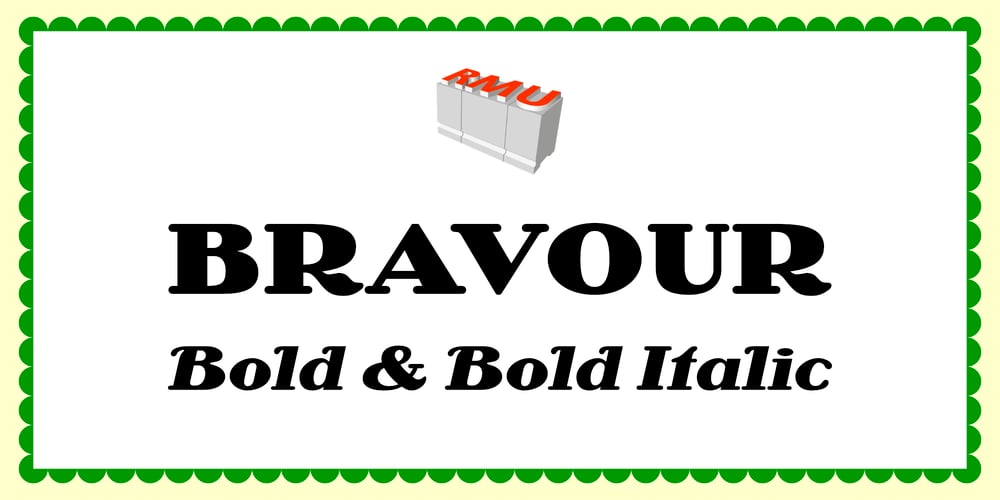
Bravour
Bravour font
Bravour Font Family was designed by Ralph M. Unger, Martin Jacoby-Boy and published by RMU. Bravour contains 2 styles and family package options. In the years 1912 and 1914 Martin Jacoby-Boy drew these both styles of the Bravour font family. Now freshly redesigned und extended for contemporary use both styles, Bold and Bold Italic, have reappeared.These fonts contain the historical long s, which can be reached by typing the integral sign [∫] or by turning the round s via using the OT feature historical forms. It is recommended also to activate the OT feature discretionary ligatures.